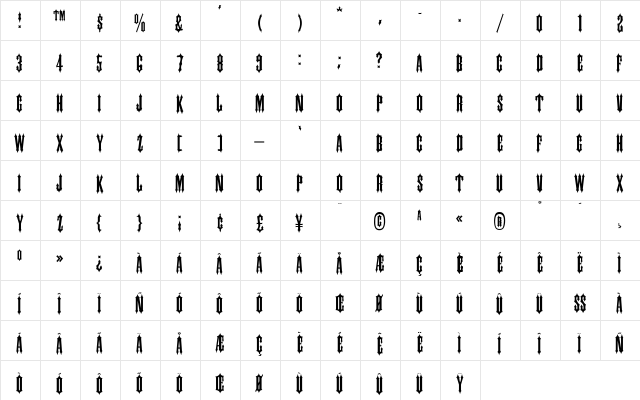
Blackbur-Medium Regular
Design Context for Blackbur-Medium Typeface
Blackbur-Medium is a composed and adaptable typeface that performs quietly and consistently across a wide range of design contexts.